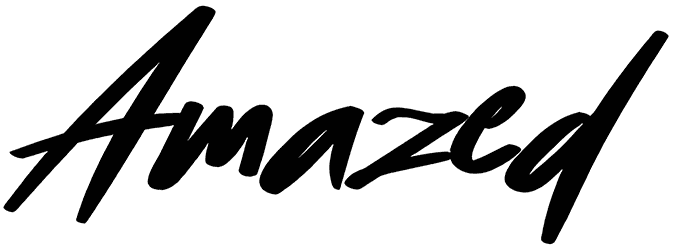
Amazed Font
Prepare to be amazed with a font that’s literally named so. Amazed is here to enhance your words with its human touch as a handwritten font and make you proud. Isn’t it what you need in your beach party posters, dance teacher business cards, catering lessons website designs, and things like that?
On top of that, the italic script style makes it the perfect travel font for anything related to planning the perfect vacation for the holidays or the weekends.